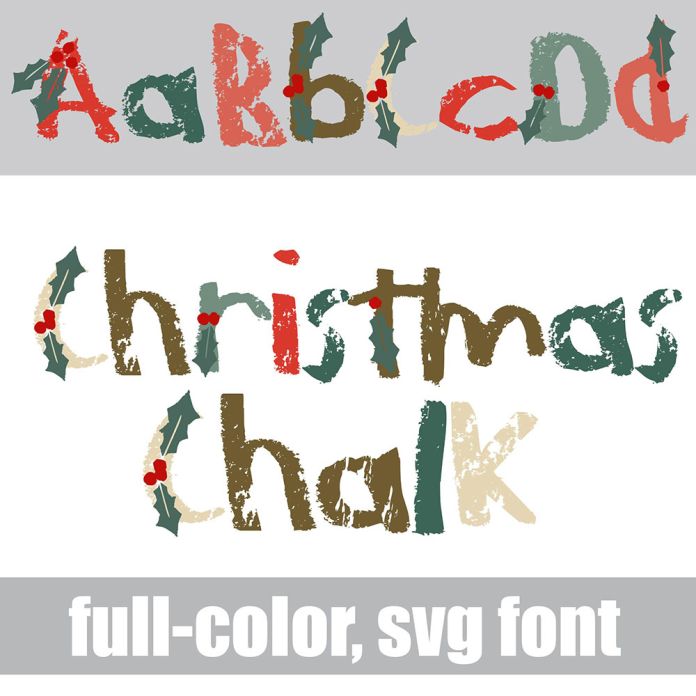
This full color font looks like youthful chalk written lettering in a Christmas color palette. There is an alt case with an additional color of each letter. This font works best for titles, displays, posters and more. Please note color fonts will show as black in non compatible programs. This font type is compatible with Silhouette Studio.